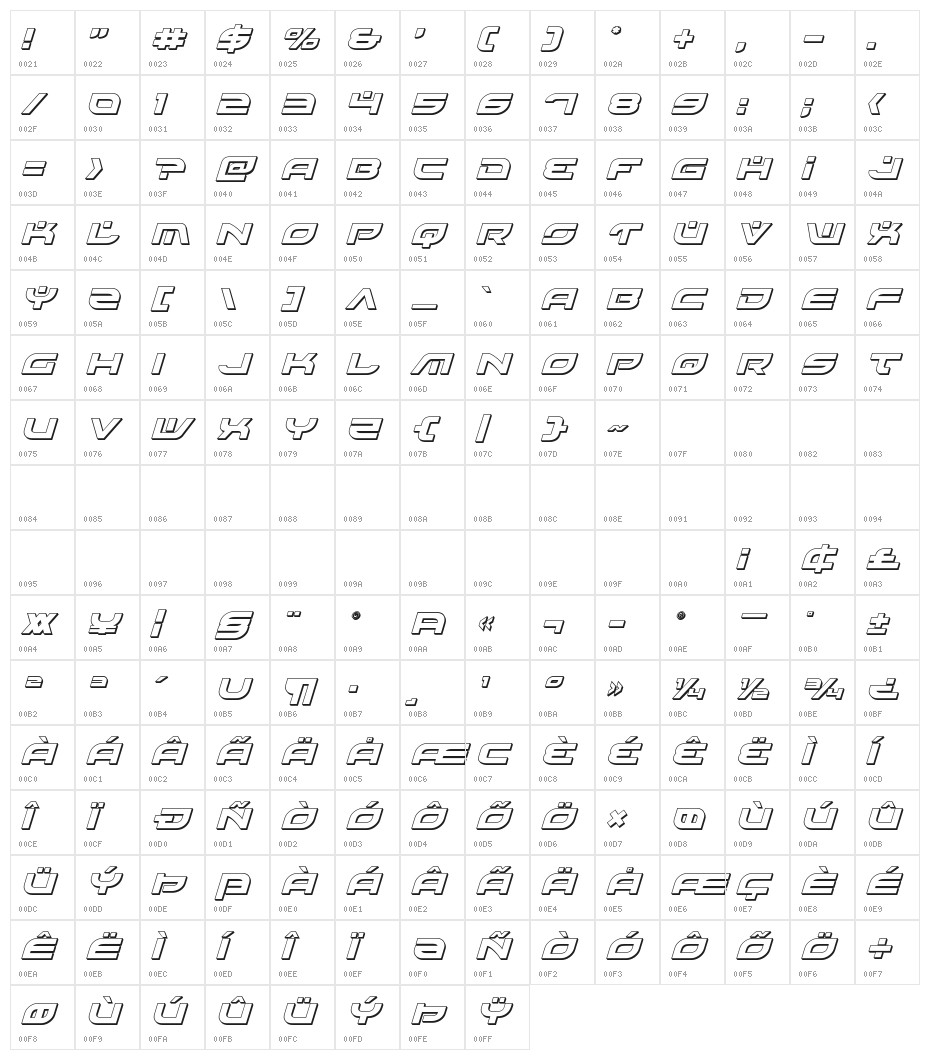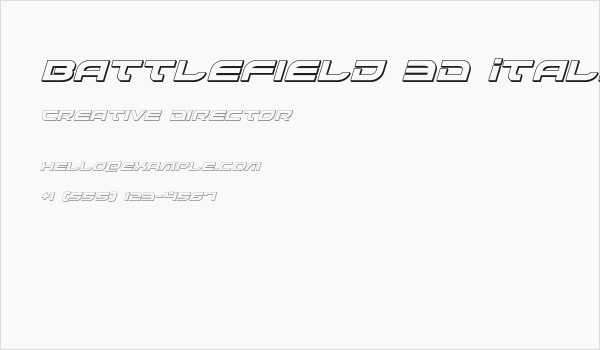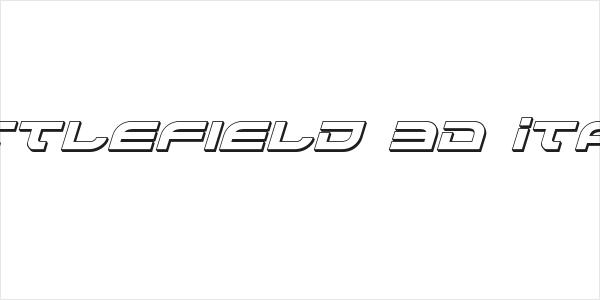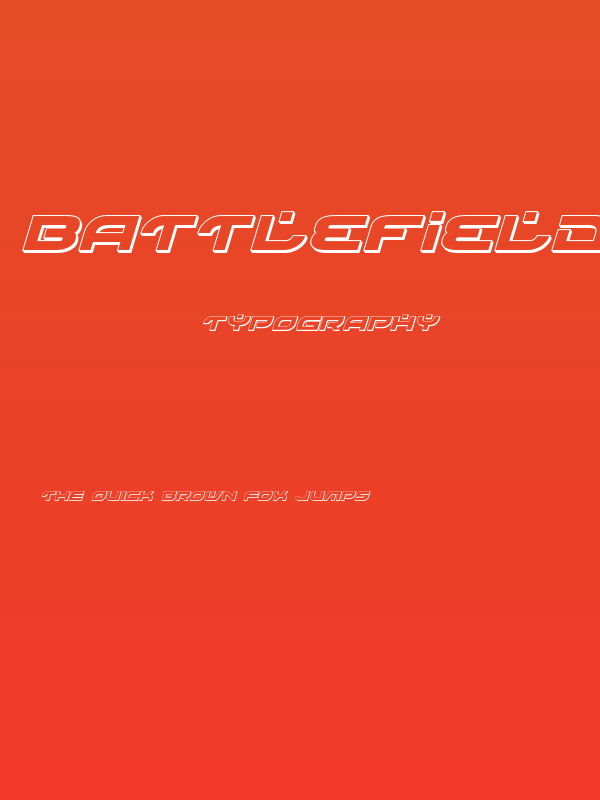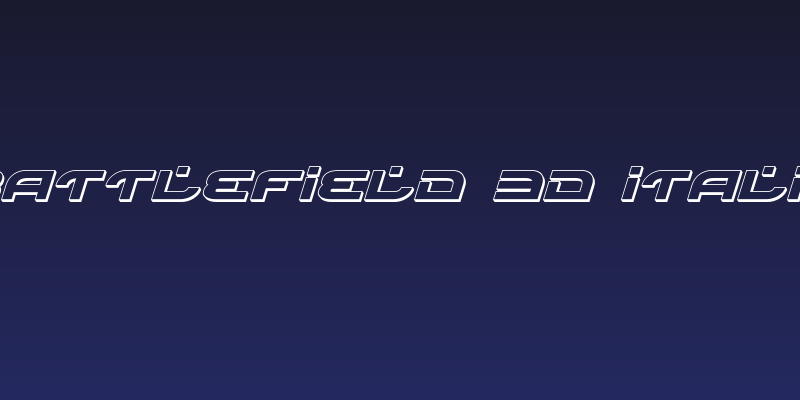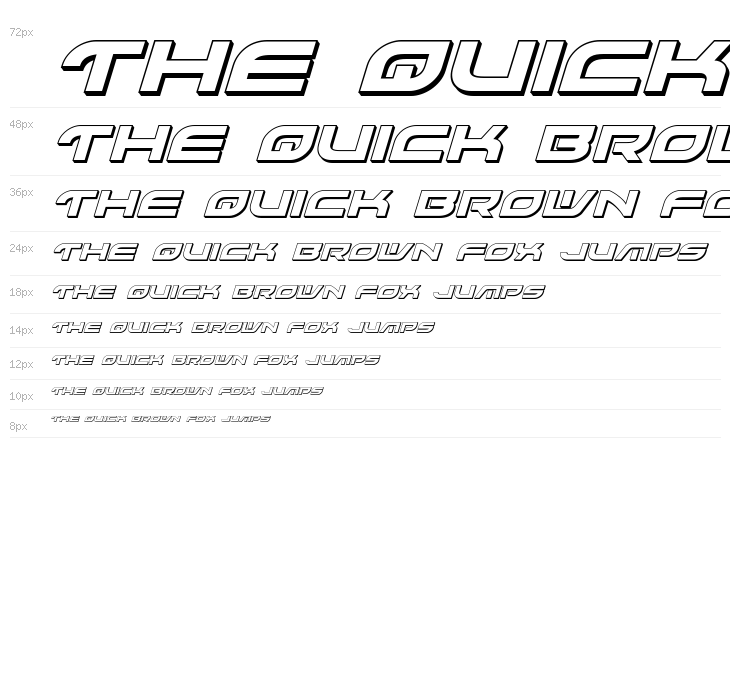
Battlefield 3D Italic Font
Battlefield 3D Italic Description
This font features a bold and dynamic 3D italic style, characterized by its strong geometric shapes and a futuristic aesthetic. The letters are outlined, giving them a hollow appearance that enhances the three-dimensional effect. The slanted design adds a sense of motion and energy, making it ideal for projects that require a modern and impactful look. The uppercase and lowercase letters maintain a consistent style, with sharp angles and clean lines. The numerals and special characters follow the same design principles, ensuring a cohesive appearance across all elements.
| Proposed Projects | Ideal for video game titles, tech-themed posters, and modern branding projects. |